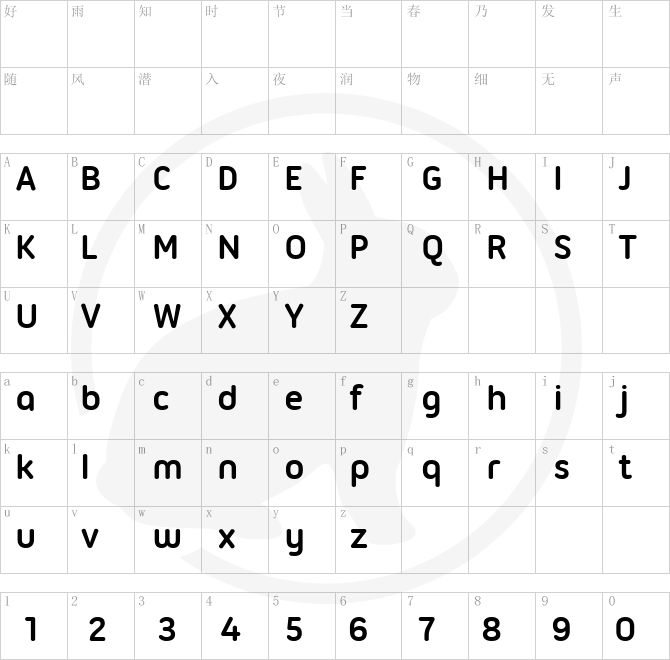
- Font Name:Ubuntu Titling Rg
UbuntuTitling-Bold.ttf is a very beautiful artistic font, UbuntuTitling-Bold.ttf is widely used in the design and printing of various books and pictures,UbuntuTitling-Bold.ttf has a strong visual impact,UbuntuTitling-Bold.ttf is a commonly used font in newspapers, magazines and books, and is used in posters, e-commerce Poster design, store design, logo design, font design and other fields.UbuntuTitling-Bold.